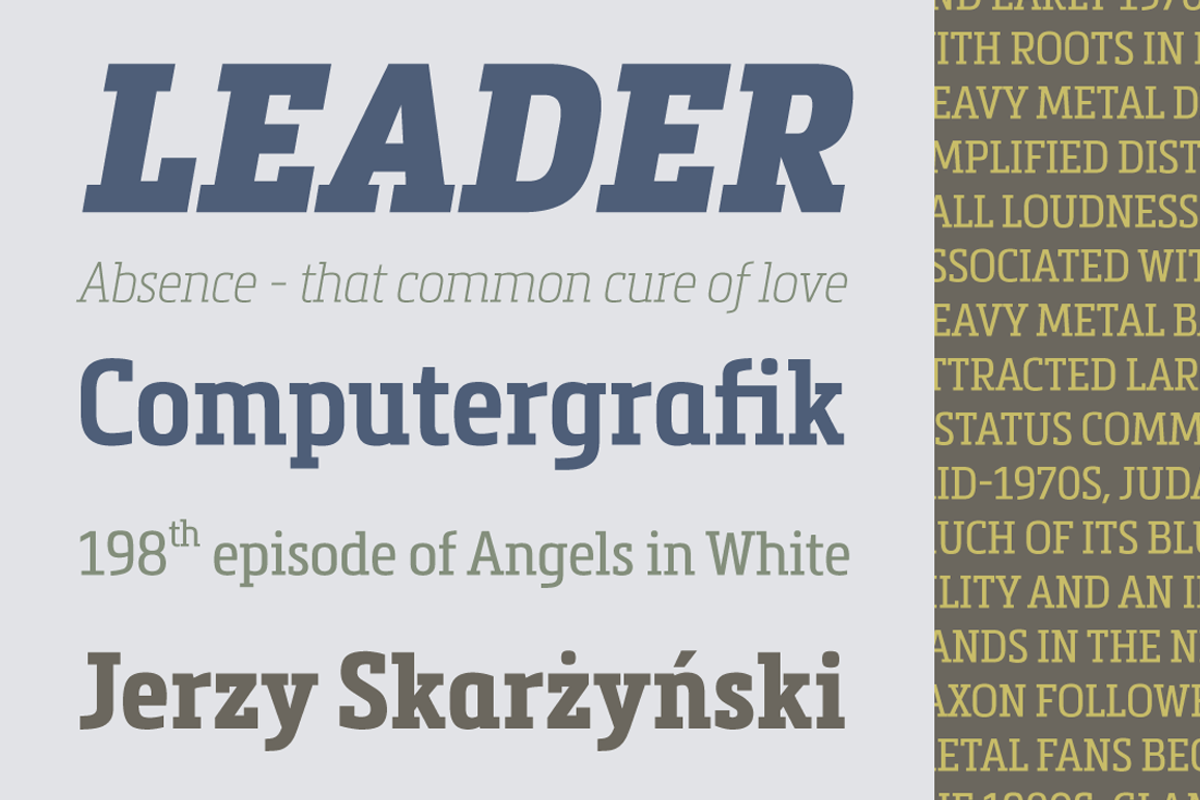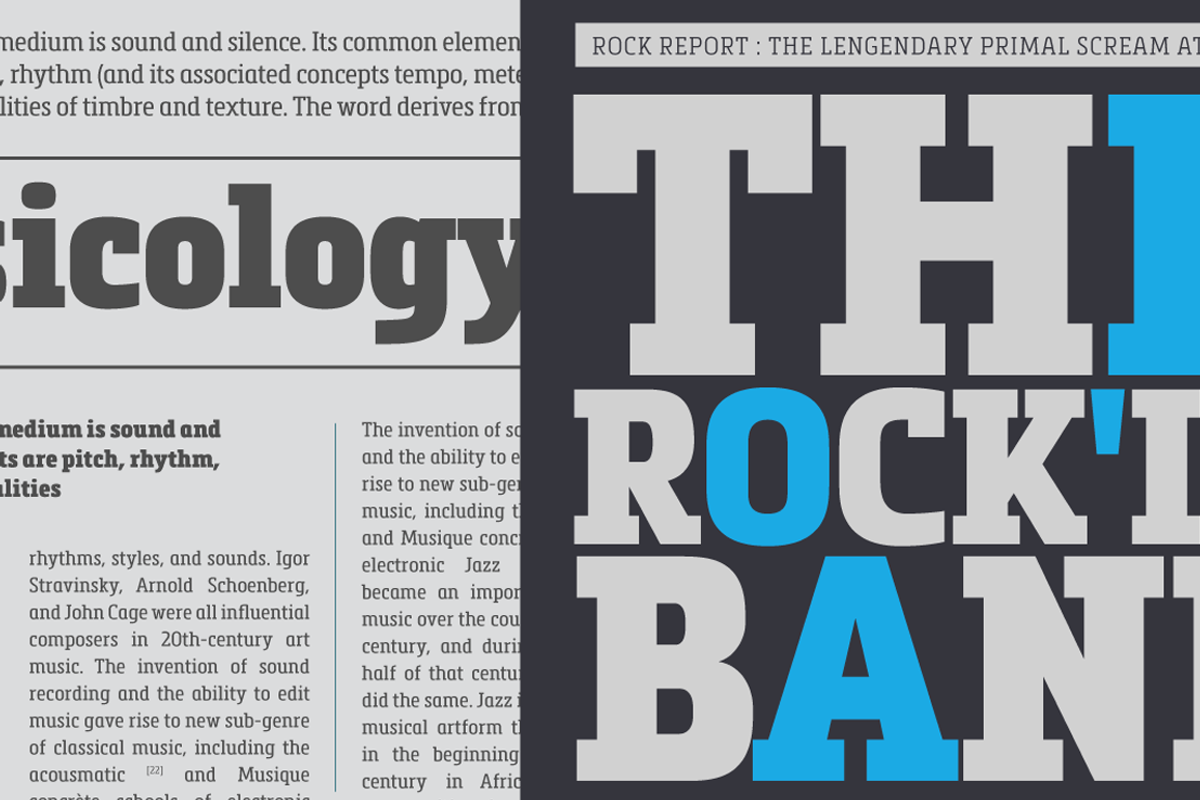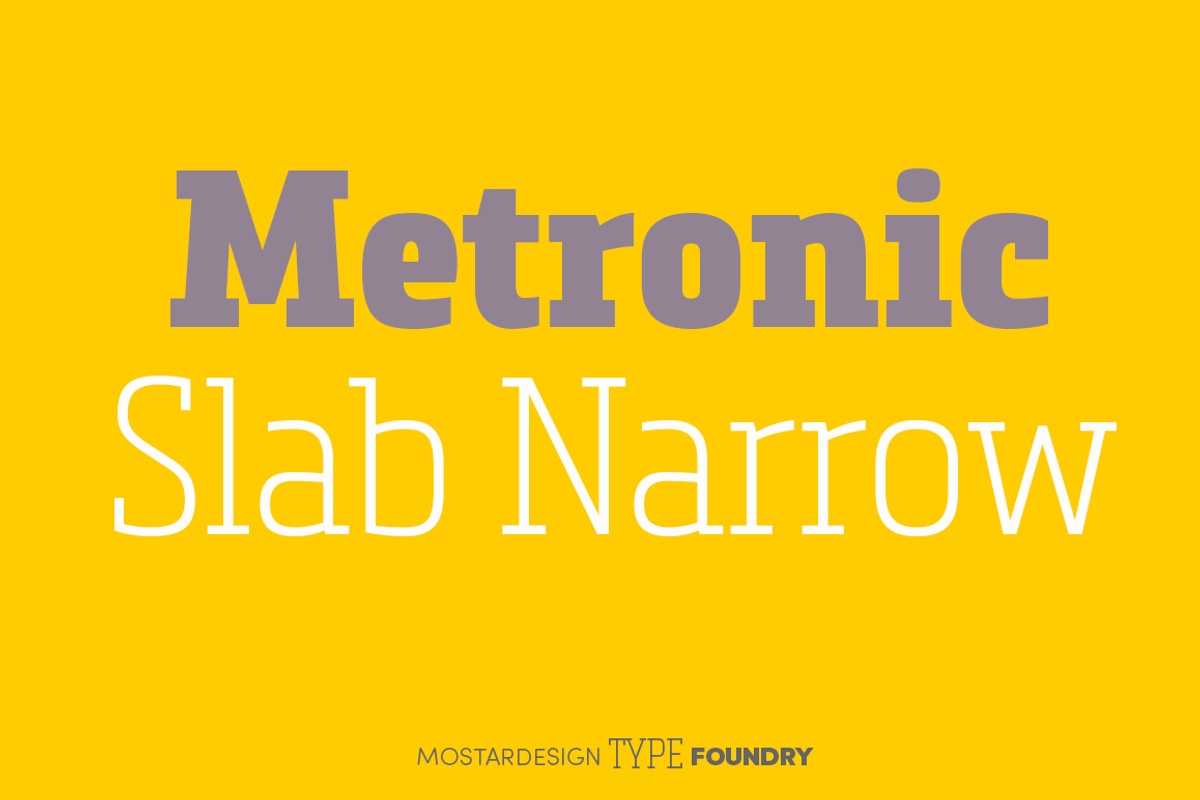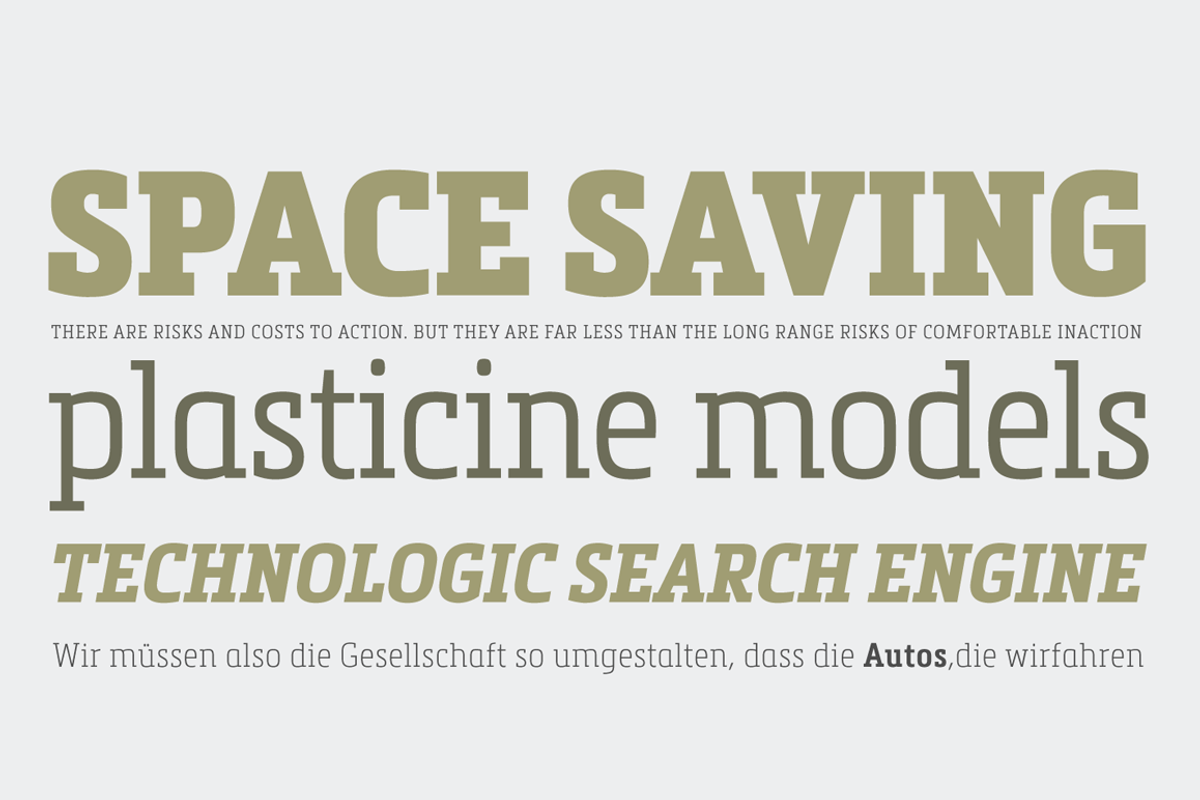
Metronic Slab Narrow (12 fonts)
Metronic Slab Narrow is the condensed version of the Metronic Slab font family. This condensed style is a space-saving typeface with high legibility and versatility in mind.This Family also improved the needs of developers and graphic designers looking for width-compatible fonts. As the normal style this font family is an innovative and refreshing semi serif design with a contemporary look for text and headlines. It has six versatile weights from Air to Black with an alternative glyphs set to improve its use in different graphic contexts.
• 12 fonts from Air to Black